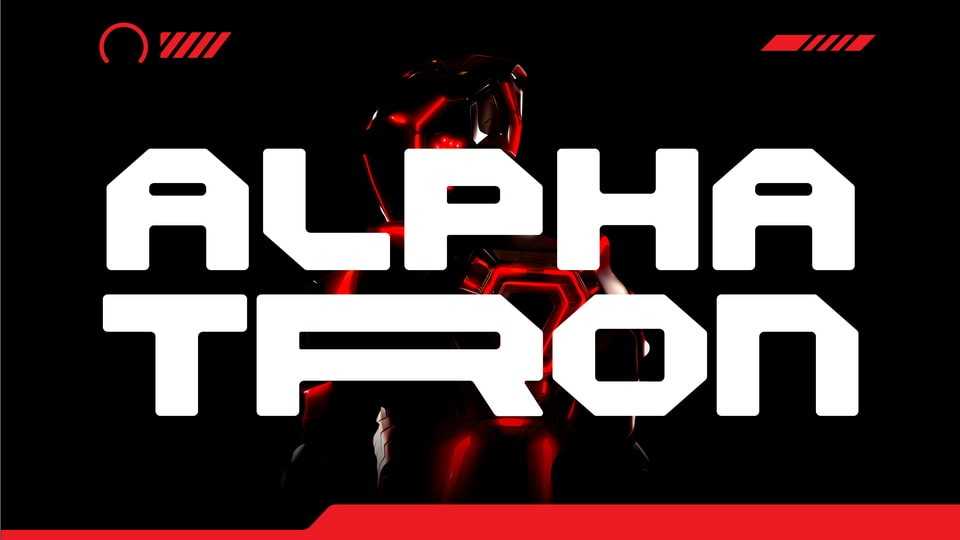
Download Alphatron font, a display typeface with a bold and futuristic style. Perfect for standout headline designs, poster, branding, and future themed digital projects.